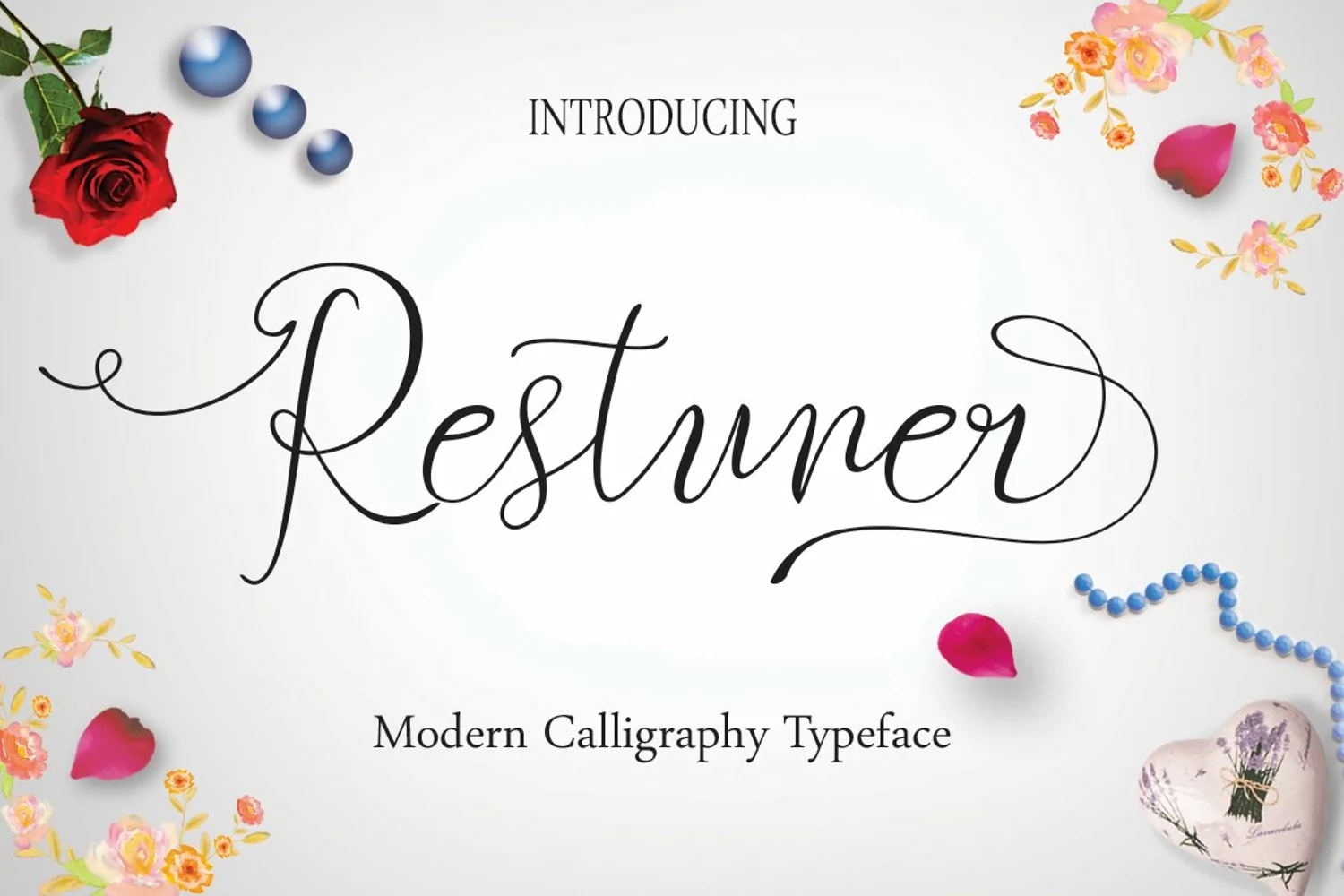
Restuner script font has ALL THE THINGS! This amazing script font has 538 glyphs. Color me flabbergasted! All joking aside, this lovely script font flows beautifully and has a modern calligraphy style making it the ideal font for wedding designs, logos, branding, social media and so much more. Grab this font now!